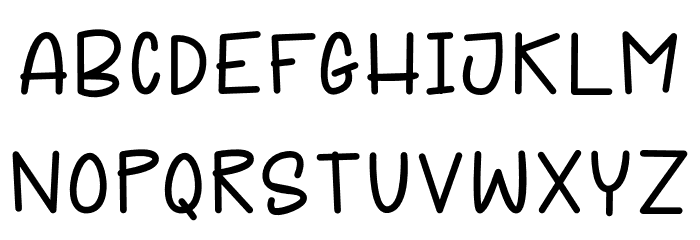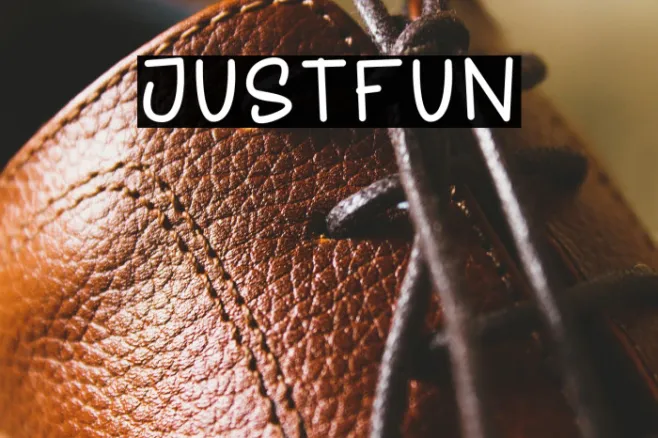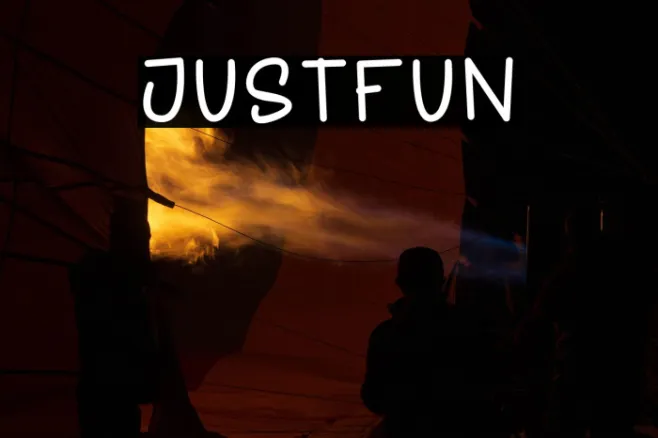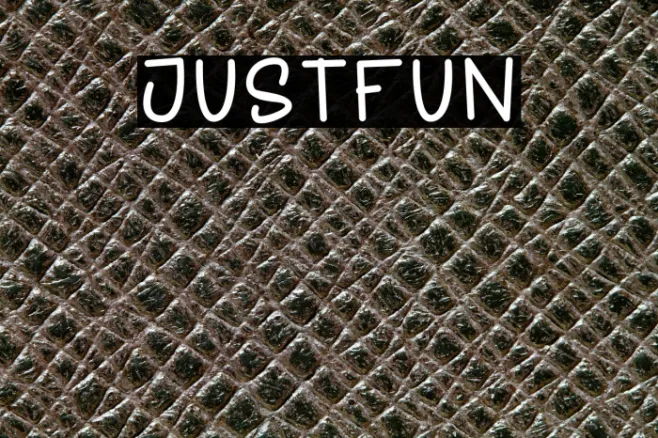
JUSTFUN Font
This playful and casual font features a handwritten style with a slightly irregular baseline, giving it a friendly and approachable feel. The characters are rounded with a consistent stroke width, creating a harmonious and balanced appearance. The uppercase letters are bold and prominent, while the lowercase letters maintain a similar weight, ensuring readability. This font is ideal for projects that require a personal touch, such as invitations, greeting cards, or children's book covers. Its informal style makes it suitable for conveying warmth and creativity.
A playful, handwritten font with rounded characters and consistent stroke width.
- Proposed Projects: Ideal for invitations, greeting cards, children's books, and creative projects.
- Overall Style: Casual, Playful
- Use Case: Headlines, Informal text, Creative projects